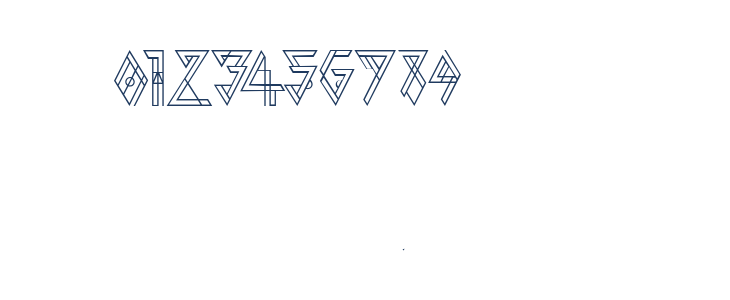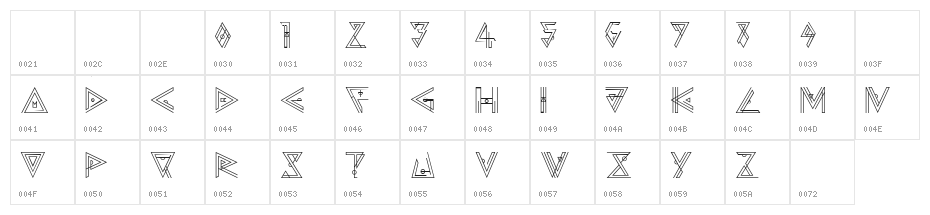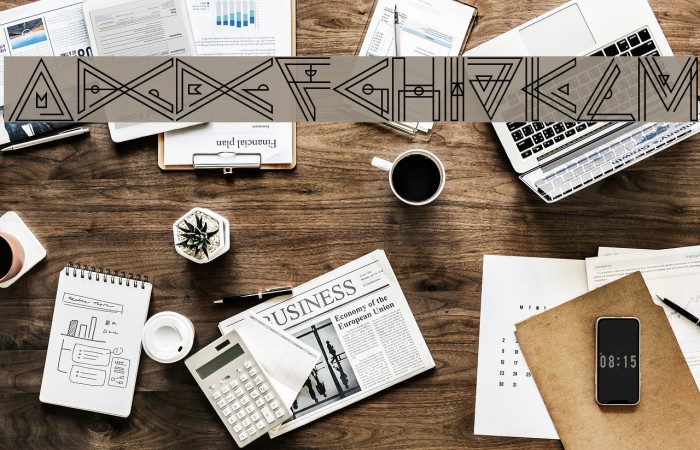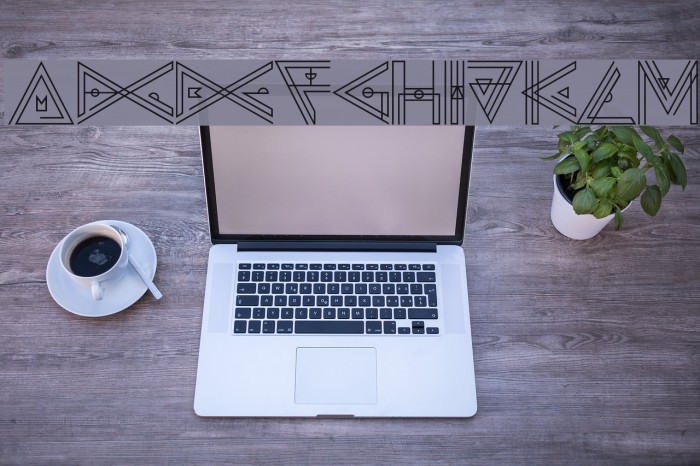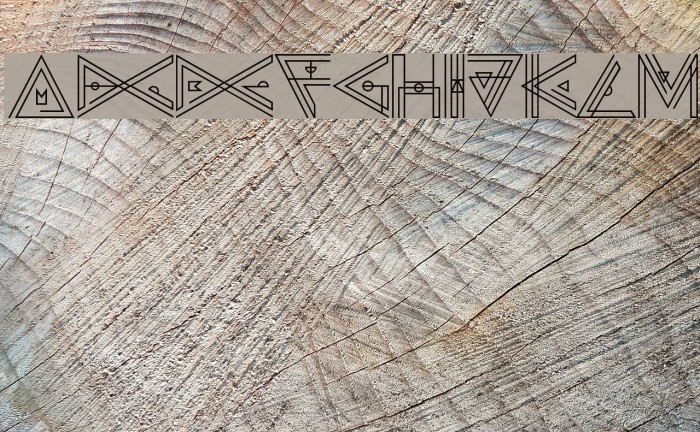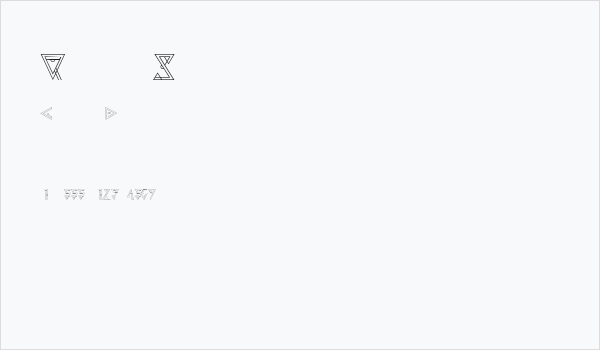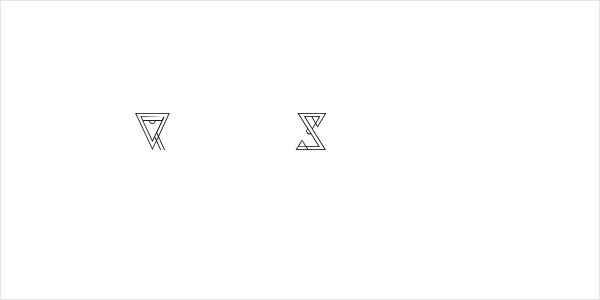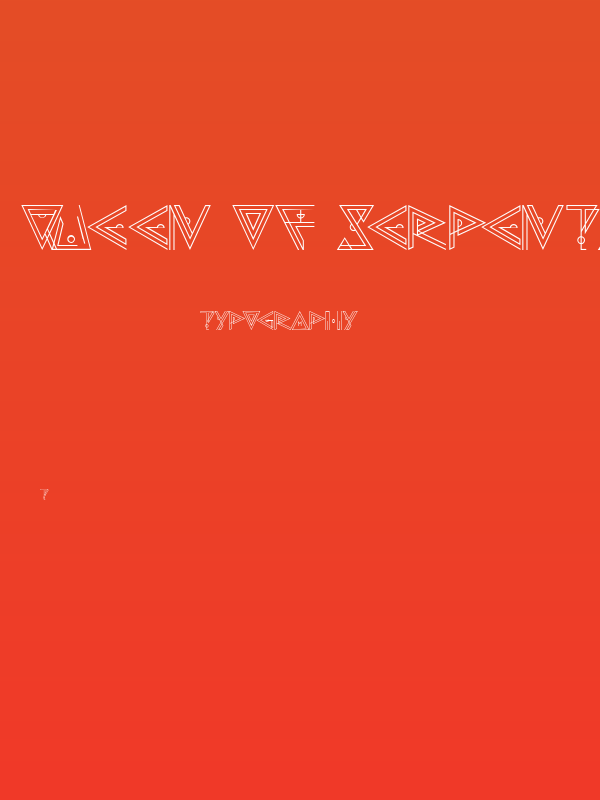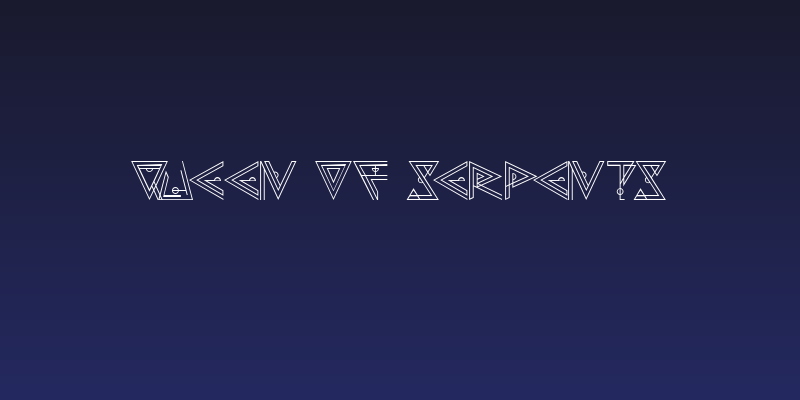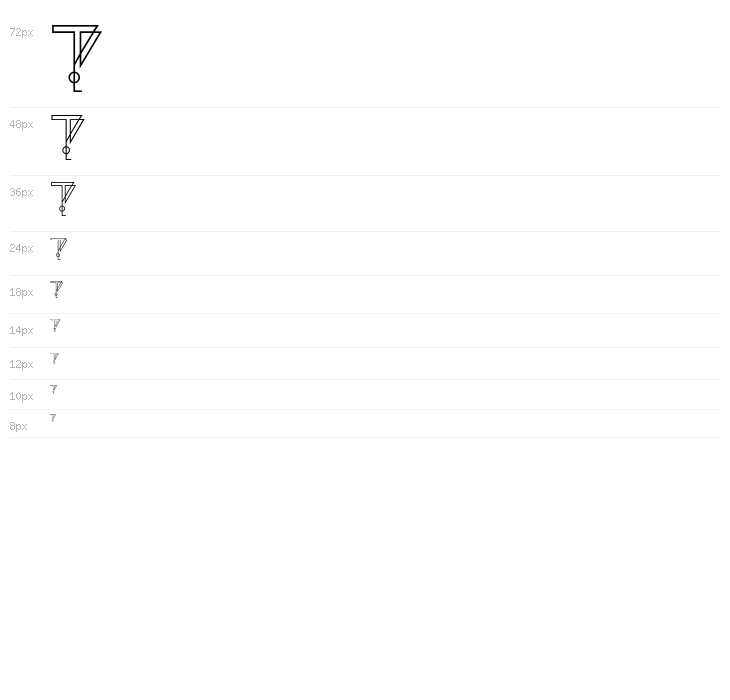
Queen of Serpents Font
Queen of Serpents Description
This font features a highly decorative and geometric design, characterized by intricate line work and angular shapes. Each character is constructed with a series of intersecting lines and triangles, creating a complex and visually striking appearance. The letters and numbers are uniform in height, maintaining a consistent baseline, while the use of negative space adds to the overall aesthetic. The font's unique style is reminiscent of ancient runes or hieroglyphs, giving it a mysterious and enigmatic feel. The design is both modern and timeless, suitable for projects that require a bold and artistic touch.
| Proposed Projects | Ideal for fantasy-themed designs, video game titles, book covers, or branding that requires a mystical or ancient aesthetic. |